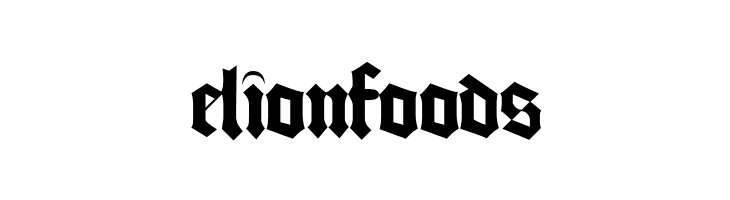
( Cioroianu Stefan Cristian )
An ornate script font with elaborate swashes and flourishes.
( Cioroianu Stefan Cristian )
An elegant, decorative font with ornate swashes and vintage charm.
( CloutierFontes - www.cloutierfontes.ca )
Ornamental fleur-de-lys symbol font with diverse styles.
( Cyberbuny Creations )
Ornamental dingbat font with diverse decorative motifs and frames.
( Digital Magic - www.graphicdesignplus.com/helen/digitalmagic/ )
An ornate and decorative font featuring intricate patterns and embellishments.
( Digital Magic - www.graphicdesignplus.com/helen/digitalmagic/ )
Ornamental dingbat font with intricate, symmetrical motifs.
( Digital Magic - www.graphicdesignplus.com/helen/digitalmagic/ )
A diverse set of decorative symbols and dingbats.
( Digital Type Foundry - www.digitaltypefoundry.com/ )
A bold, intricate Blackletter font with sharp, angular lines and historical elegance.
( Digital Type Foundry - www.digitaltypefoundry.com/ )
An ornate, medieval-style font with bold, decorative elements and intricate serifs.
( Digital Type Foundry - www.digitaltypefoundry.com/ )
A traditional blackletter font with ornate, angular letterforms.